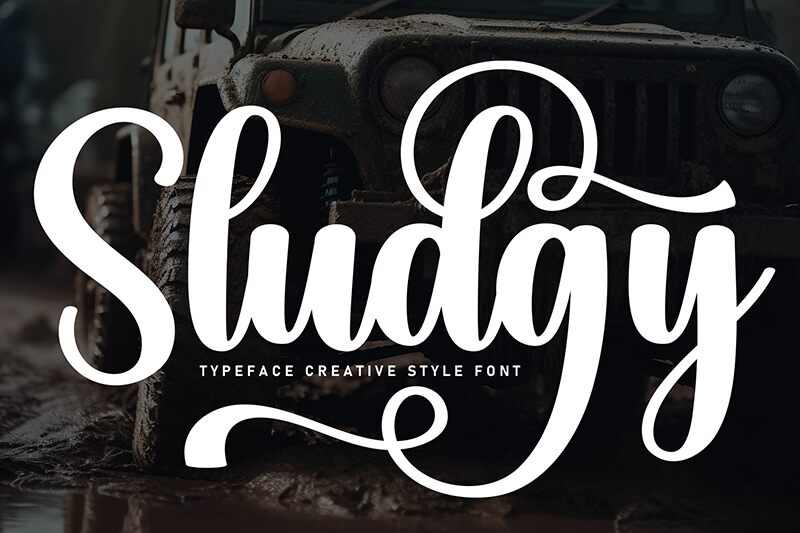
Sludgy
Sludgy font is a handwritten type by Scratchones, full of immersive, playful elegance. Slightly leaning toward cursive, its letters curve and meet with dynamic agility. The regular fluidity creates expressive moods exemplary for luxurious projects. This free font implements geometric roundness and is inspired by classic calligraphic works but has a unique modern spin.
Use it to write restaurant cards and menus, posters, or branding projects like product labels and packaging. On a smaller scale, it will appear magnificent in invitation designs, greeting cards, logo design, quotes about yourself on social media platforms called Instagram posts…the list goes on!